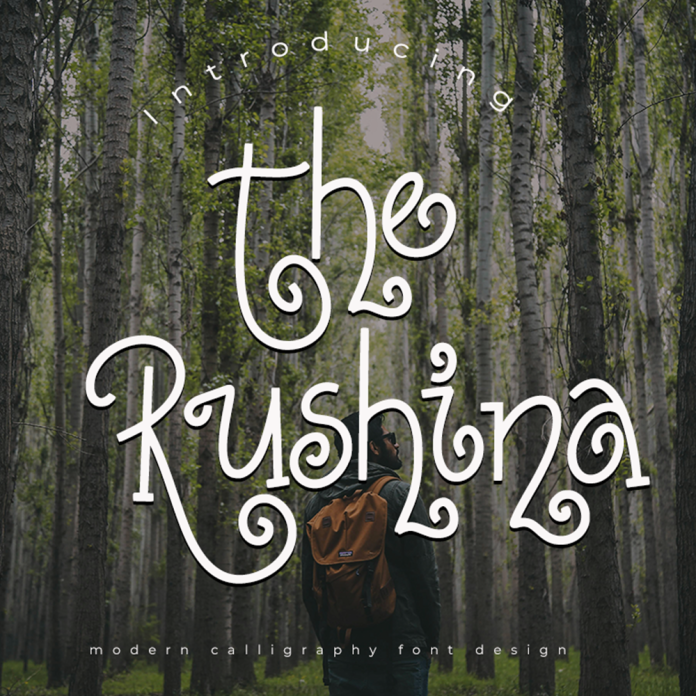
The Rushina font is a modern and elegant script font that features fluid lines and a sophisticated style. Its flowing characters create a sense of movement and grace, making it perfect for luxury branding, wedding invitations, and other high-end design projects. The Rushina font adds a touch of sophistication and class to any project.